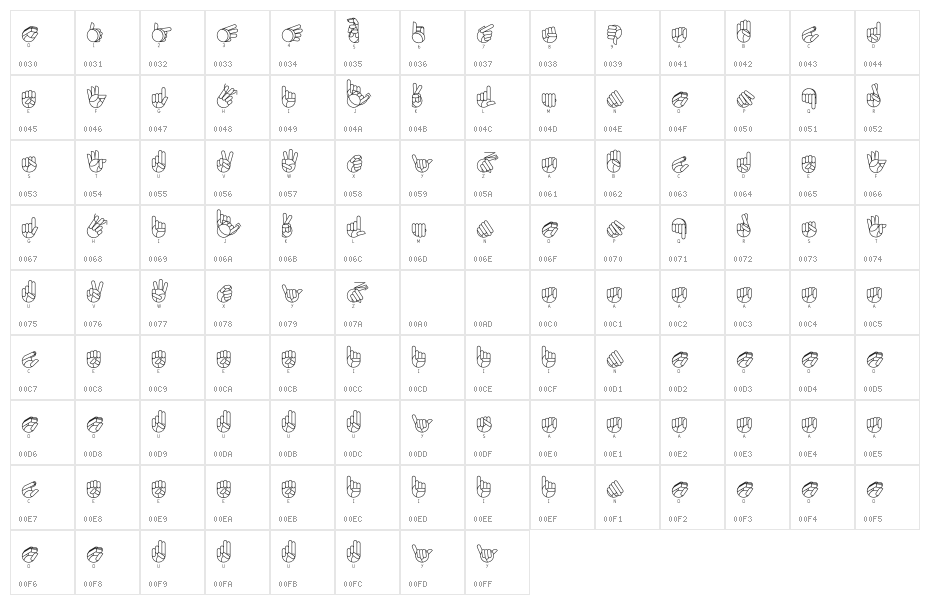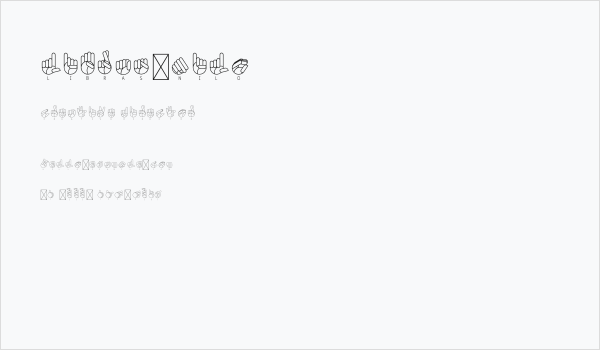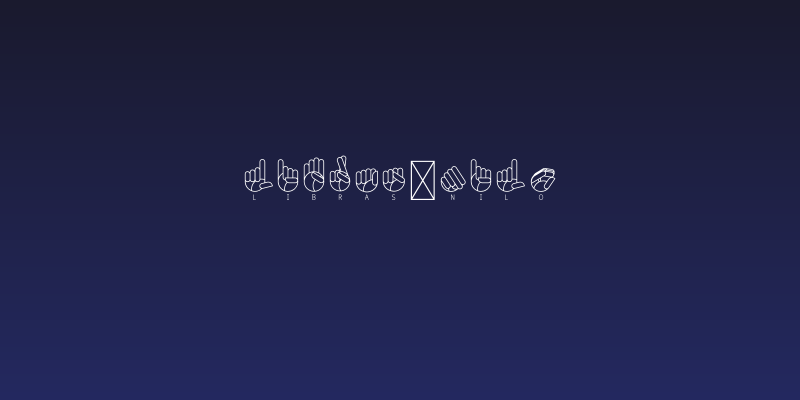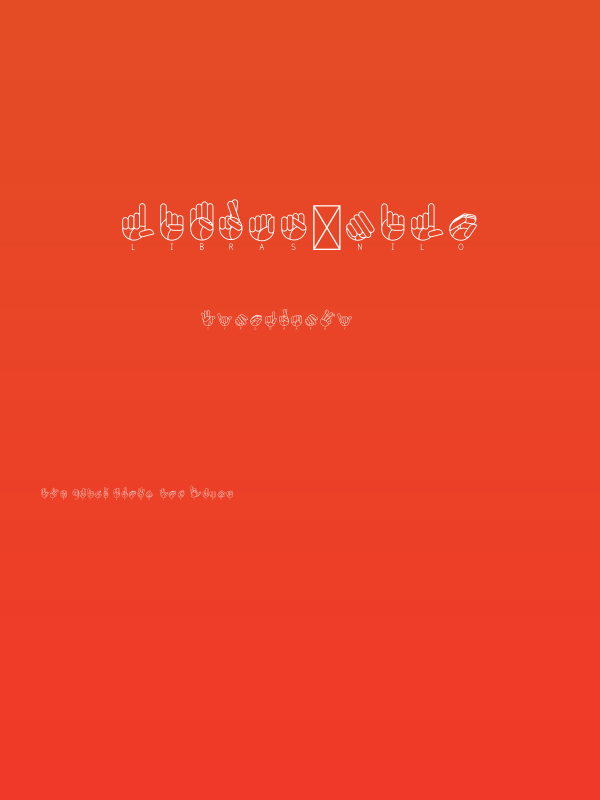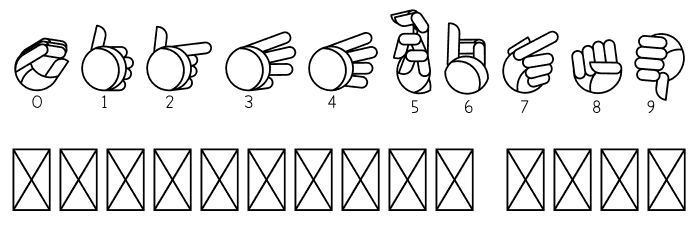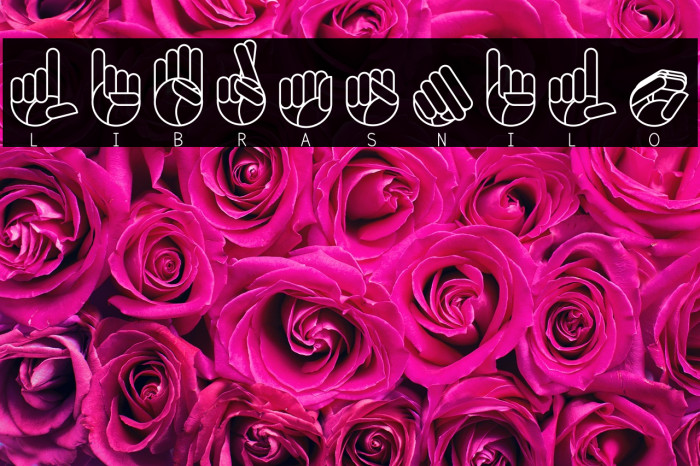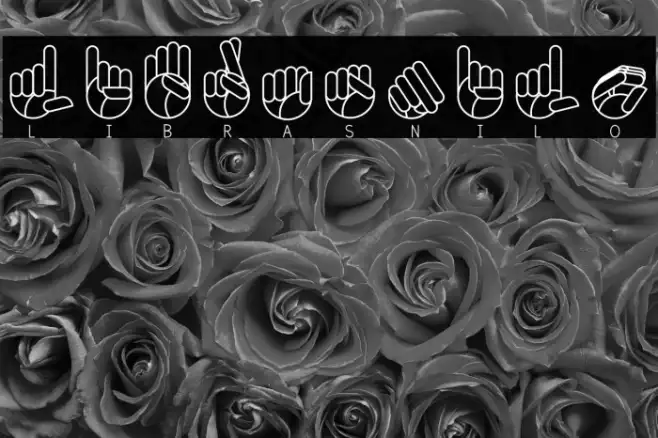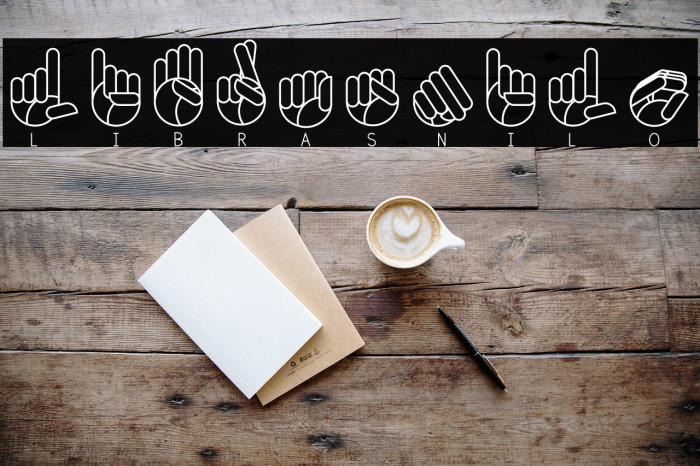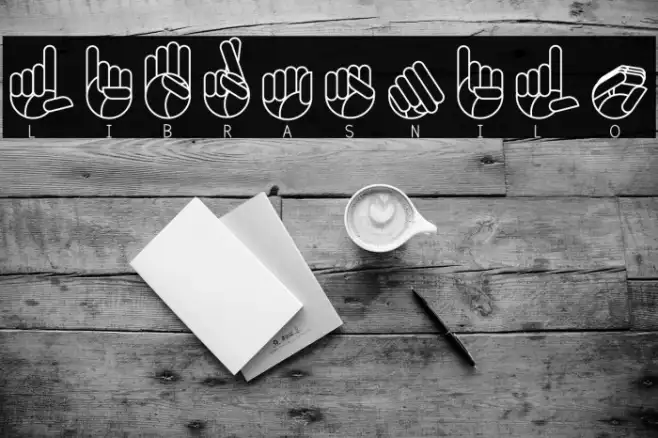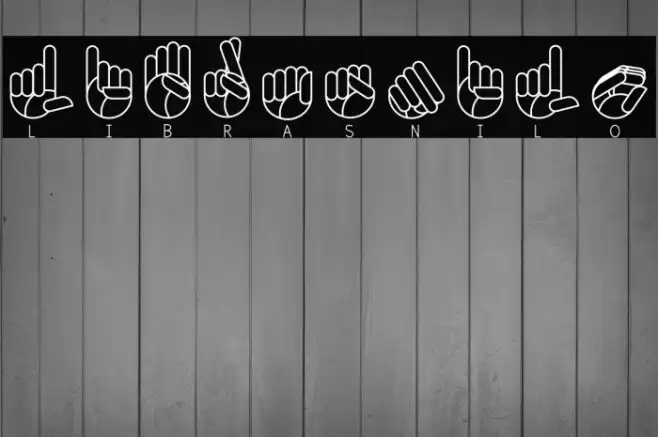
Libras-nilo Font
Libras-nilo Description
Outlined hand gesture symbols represent each letter and number, mimicking the visual language of sign language alphabets and numerals. The glyphs are constructed with clean, consistent line weights and rounded forms, maintaining clarity and legibility. Each character is visually distinct, with minimal decorative elements, focusing on accurate hand shapes.
| Overall Style | Modern, Educational, Pictorial |
| Use Case | Display, Educational, Thematic graphics |
| Proposed Projects | Educational materials, accessibility resources, posters, infographics, language learning tools. |